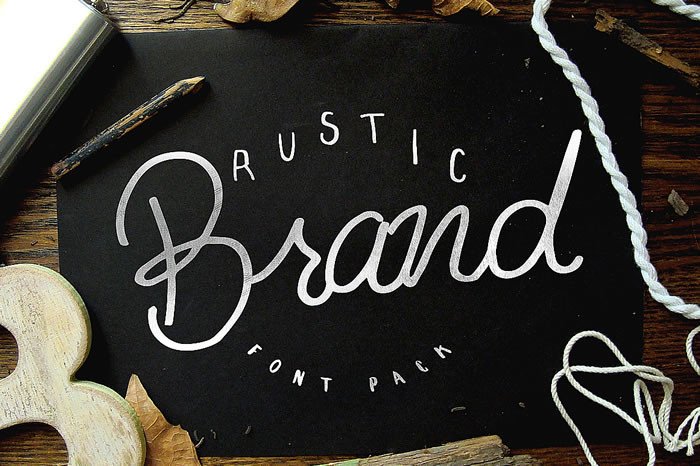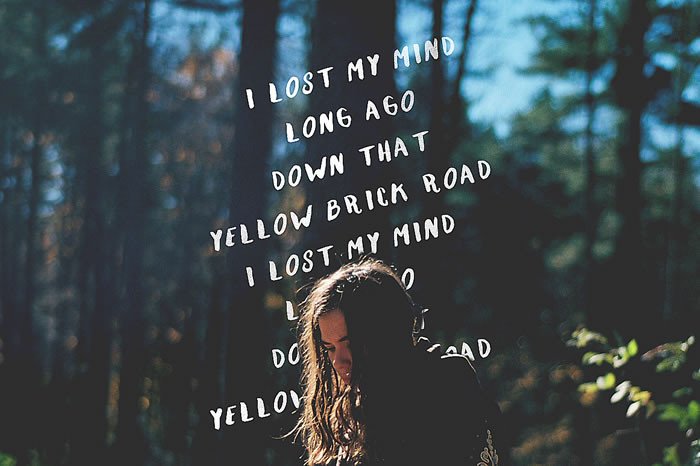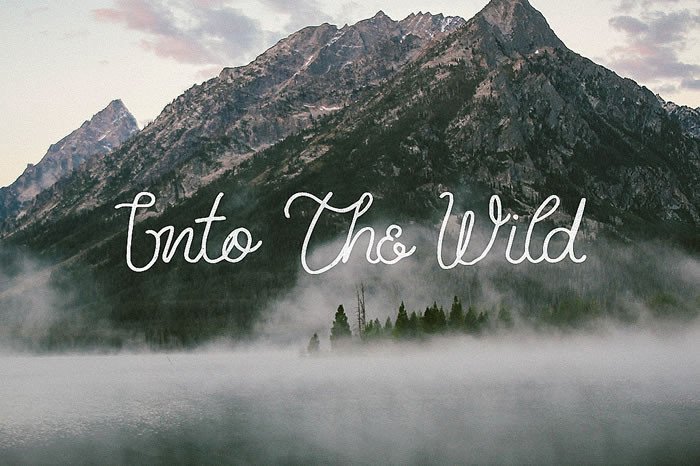
Rustic Brand Font
About Rustic Brand Font
This pack includes multiple happy and easy-to-use fonts with a super rustic and vintage style to create your own logo, banner, wedding card, or anything you can imagine.